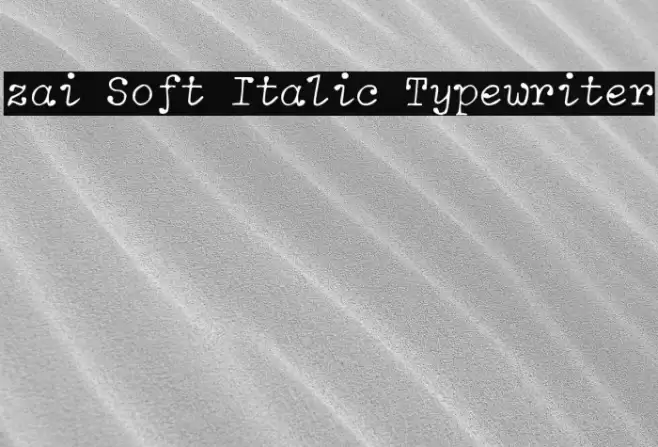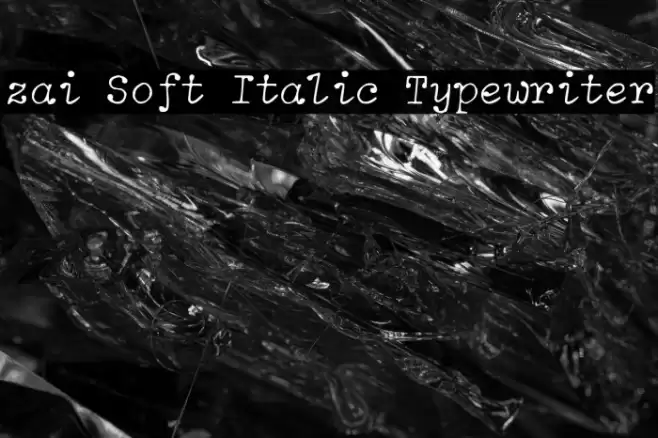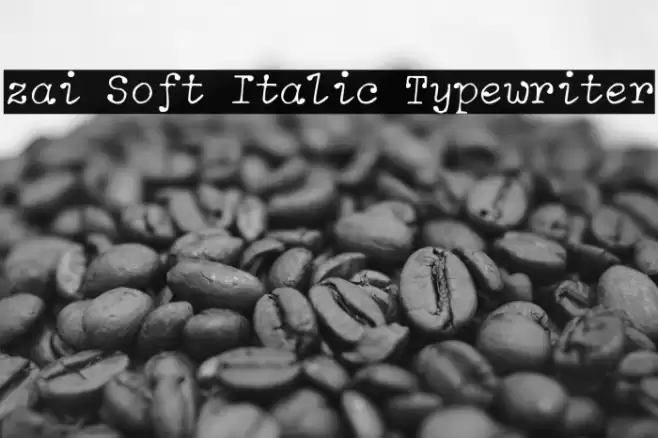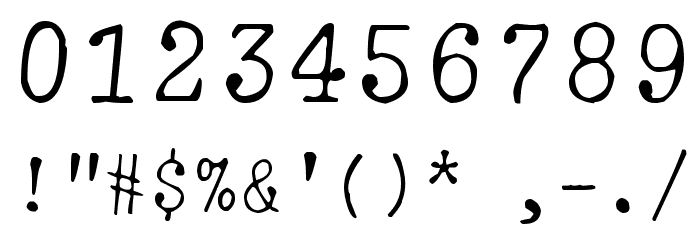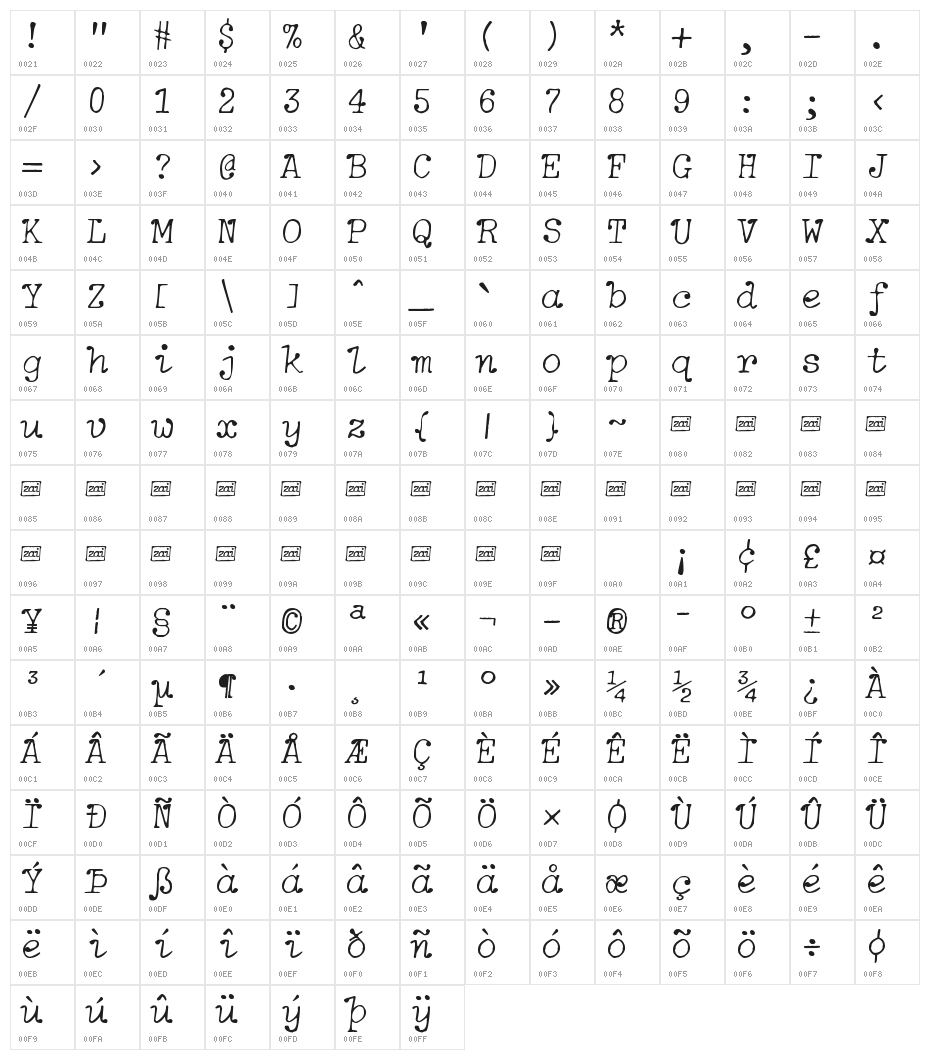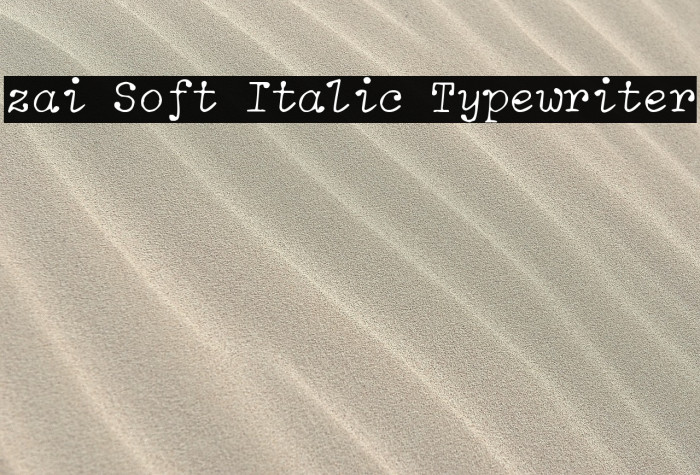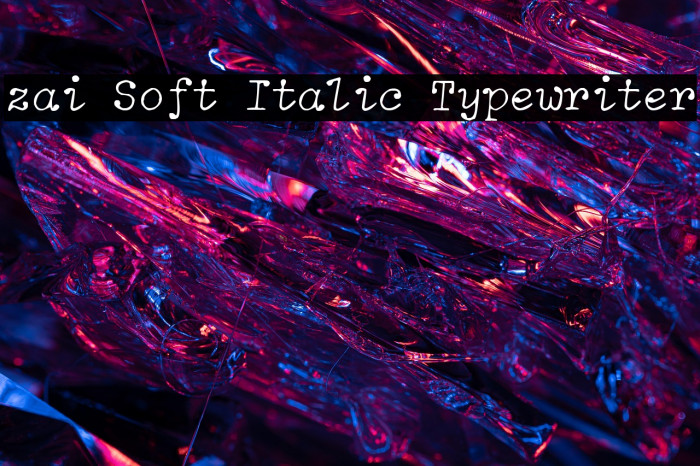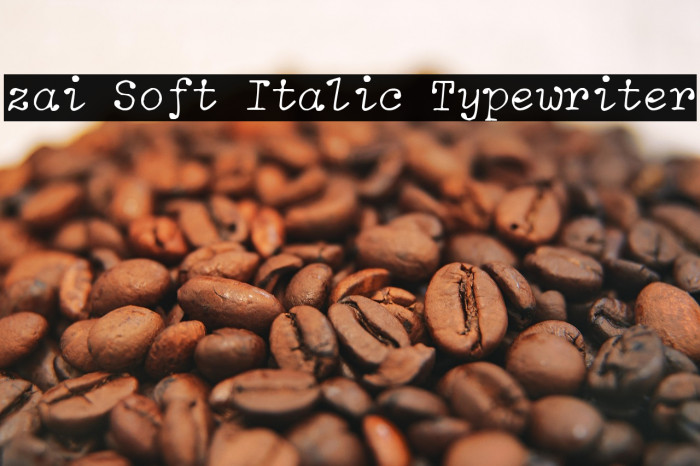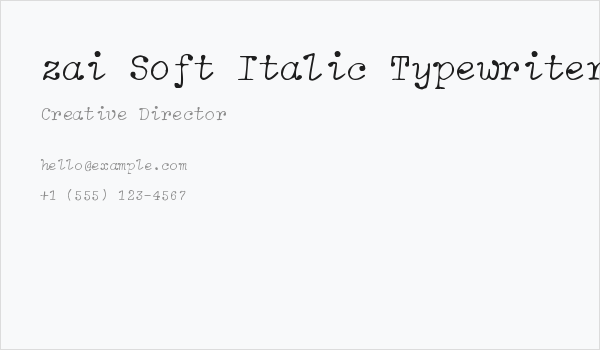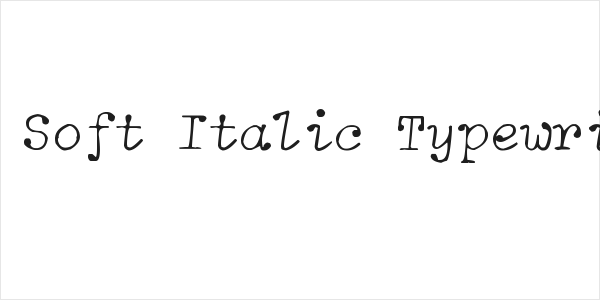
zai Soft Italic Typewriter Font
zai Soft Italic Typewriter Description
This typewriter-style font features a charming, handwritten appearance with a slight italic slant, giving it a casual yet sophisticated feel. The characters are well-defined with rounded edges, adding a touch of softness to the overall look. The uppercase letters maintain a consistent height, while the lowercase letters exhibit a playful bounce, enhancing the font's approachable nature. Numbers are clear and distinct, ensuring readability. The special characters are crafted with the same attention to detail, making this font versatile for various applications.
A charming, italic typewriter-style font with a handwritten feel from Regular fonts.
- Proposed Projects: Ideal for personal journals, creative writing projects, vintage-themed designs, and informal branding.
- Overall Style: Vintage
- Use Case: Creative writing, Journals, Informal branding